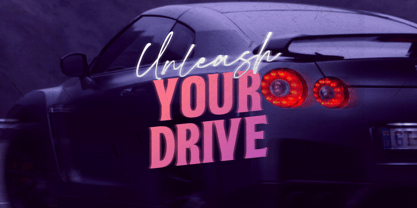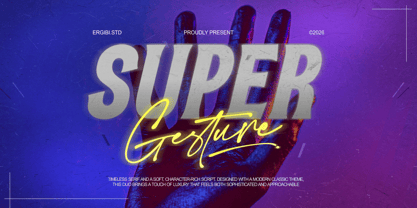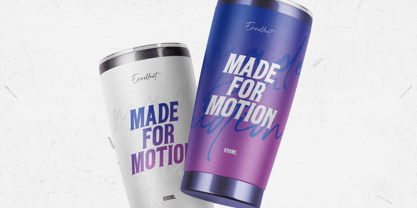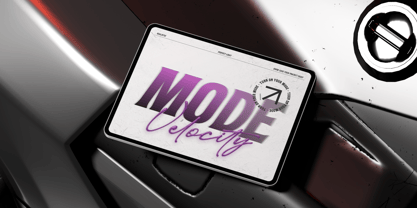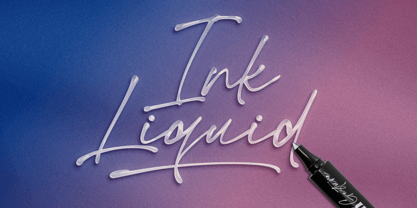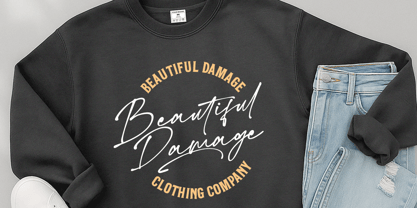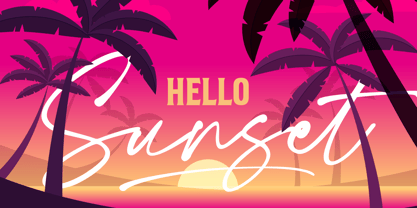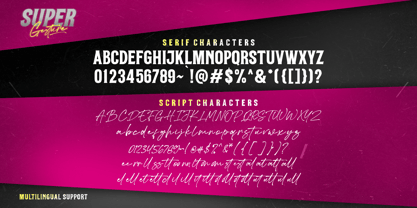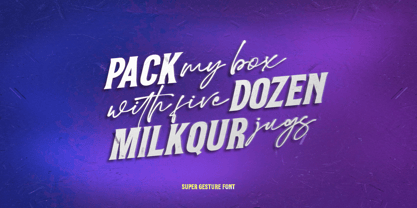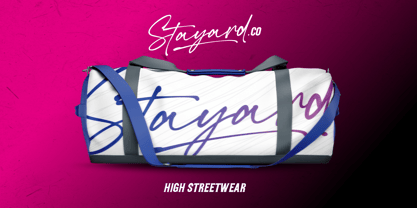
Super Gesture
The Super Gesture Font Family was designed by Riyadh Rahman and published by Ergibi Studio. Super Gesture contains 3 styles and family package options. More about this family
Super Gesture is a striking font duo that blends a bold, timeless serif with a fluid, expressive script. Designed to create a perfect balance between structure and movement, this pairing delivers a powerful visual contrast that feels both modern and sophisticated. Perfect for branding, editorial layouts, posters, packaging, and luxury visuals, Super Gesture offers versatility and style in one complete set. Whether used together or separately, each font stands strong while enhancing the overall composition.
Super Gesture